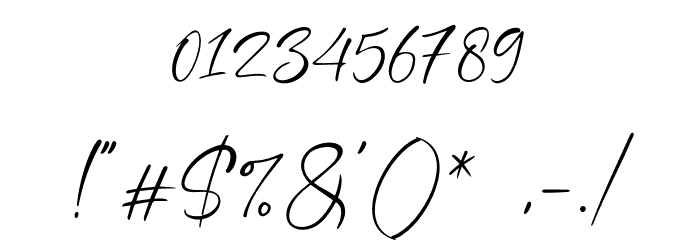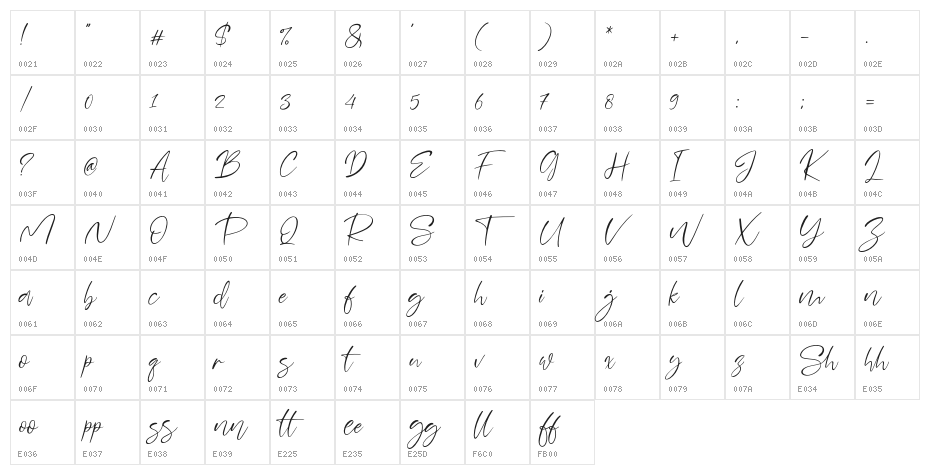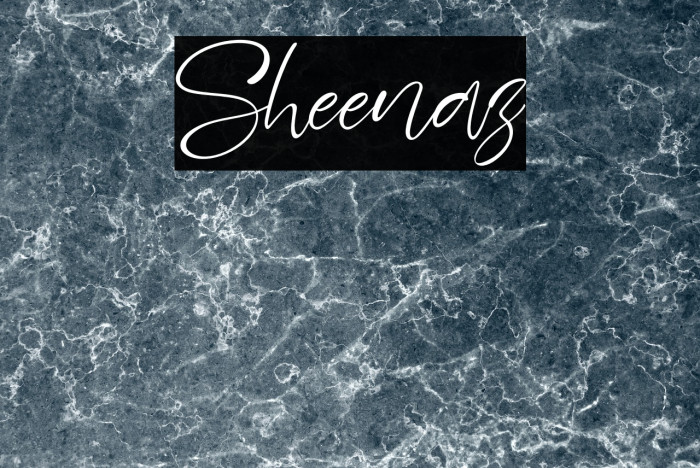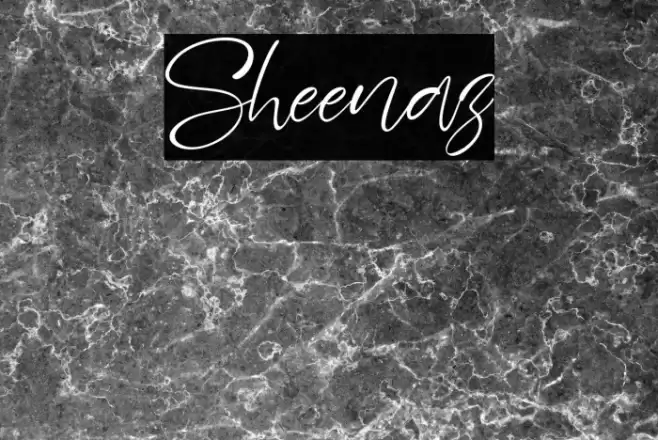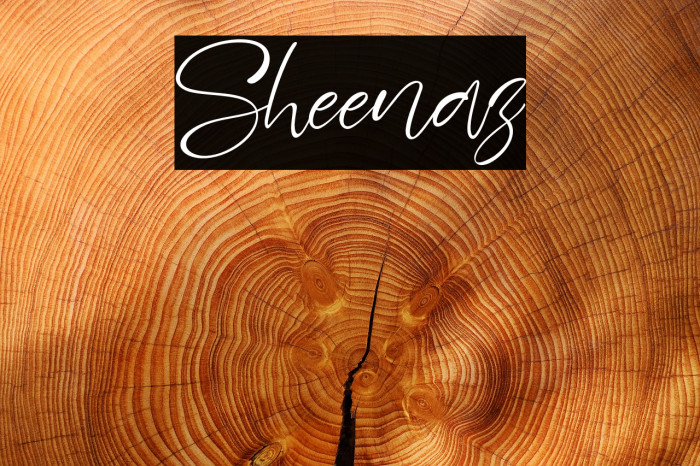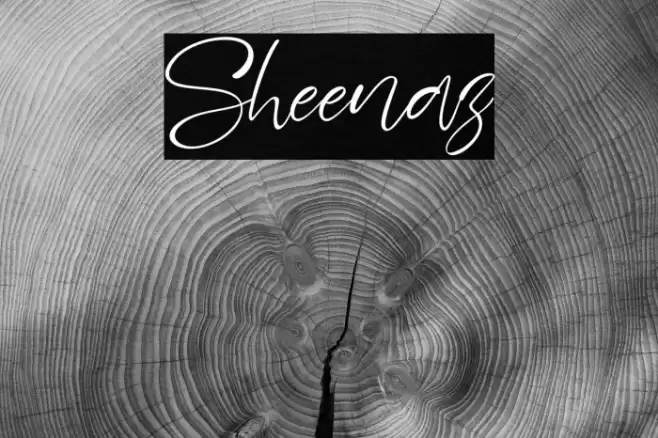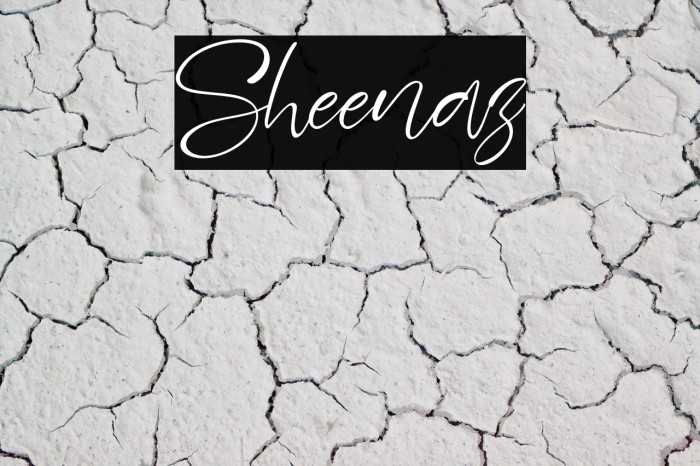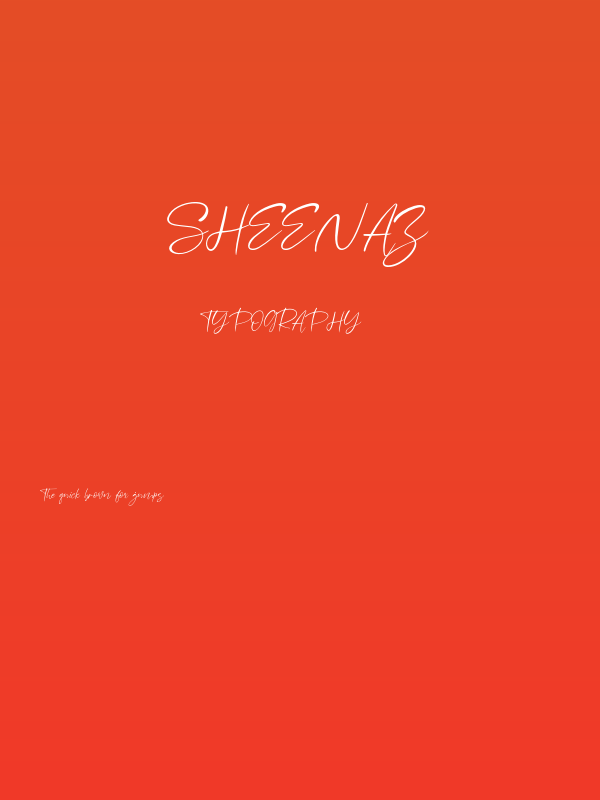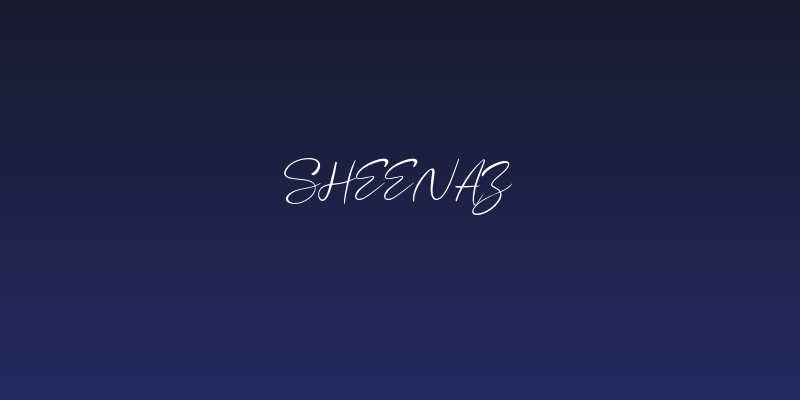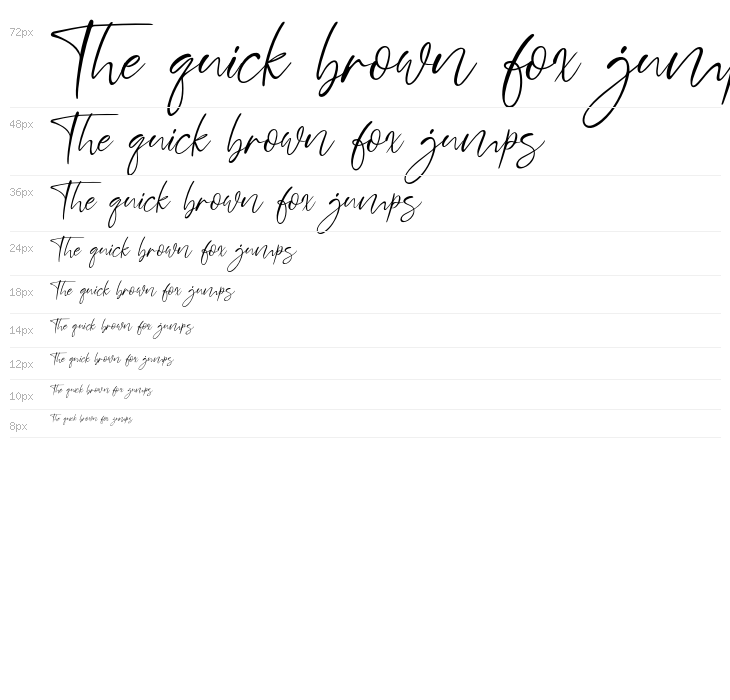
Sheenaz Font
Sheenaz Description
This elegant script font features fluid, cursive strokes that give it a handwritten appearance. The uppercase letters are tall and graceful, with sweeping lines and loops that add a touch of sophistication. The lowercase letters maintain a consistent flow, enhancing readability while preserving the artistic flair. Numbers and special characters are designed to complement the overall style, making them suitable for a variety of applications. The font's delicate yet bold strokes create a striking contrast, making it ideal for projects that require a personal and artistic touch.